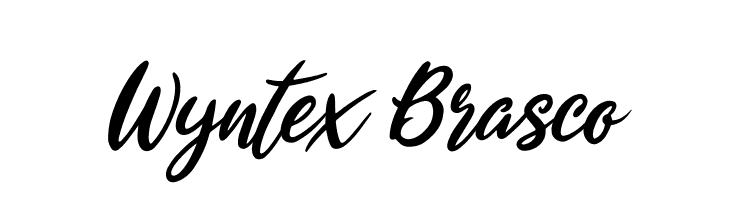
An elegant cursive script font with flowing, connected letters.
A dynamic and elegant script font with fluid, connected letterforms.
A graceful, flowing script font with elegant, handwritten characteristics.
A playful, handwritten cursive font with a fluid and organic style.
An elegant, cursive font with fluid, sweeping strokes and artistic flair.
A classic handwritten script font with fluid, cursive strokes.
A classic cursive script with elegant, connected letters for a handwritten look.
A cursive font with a fluid, handwritten style and moderate stroke contrast.
An elegant script font with flowing, cursive letters and a classic, sophisticated style.